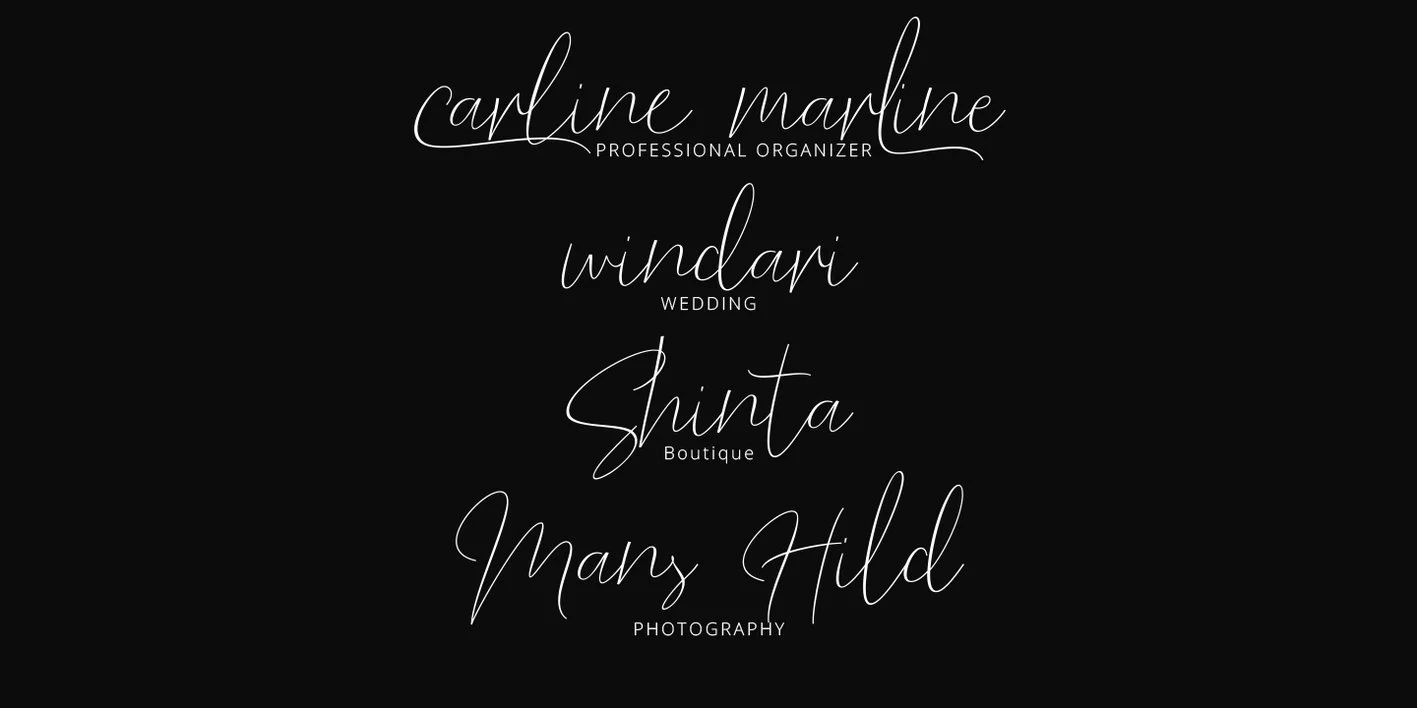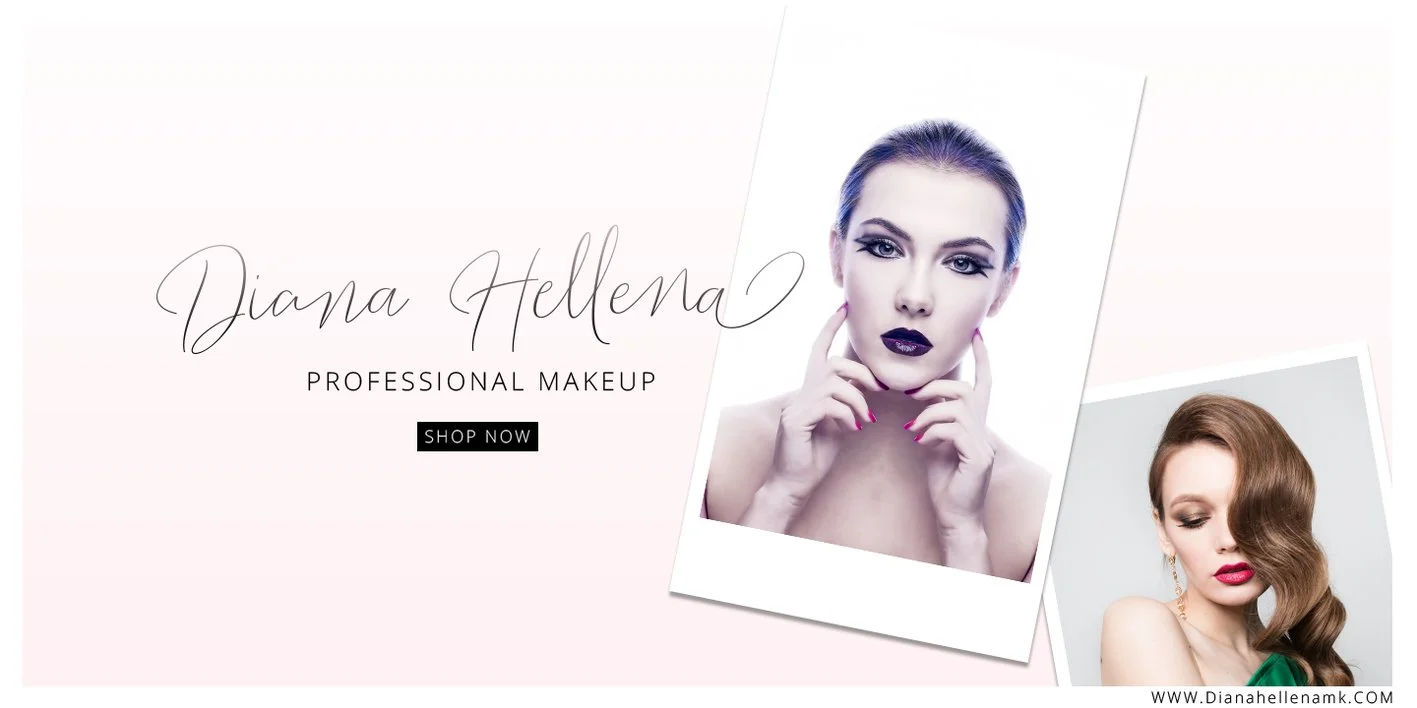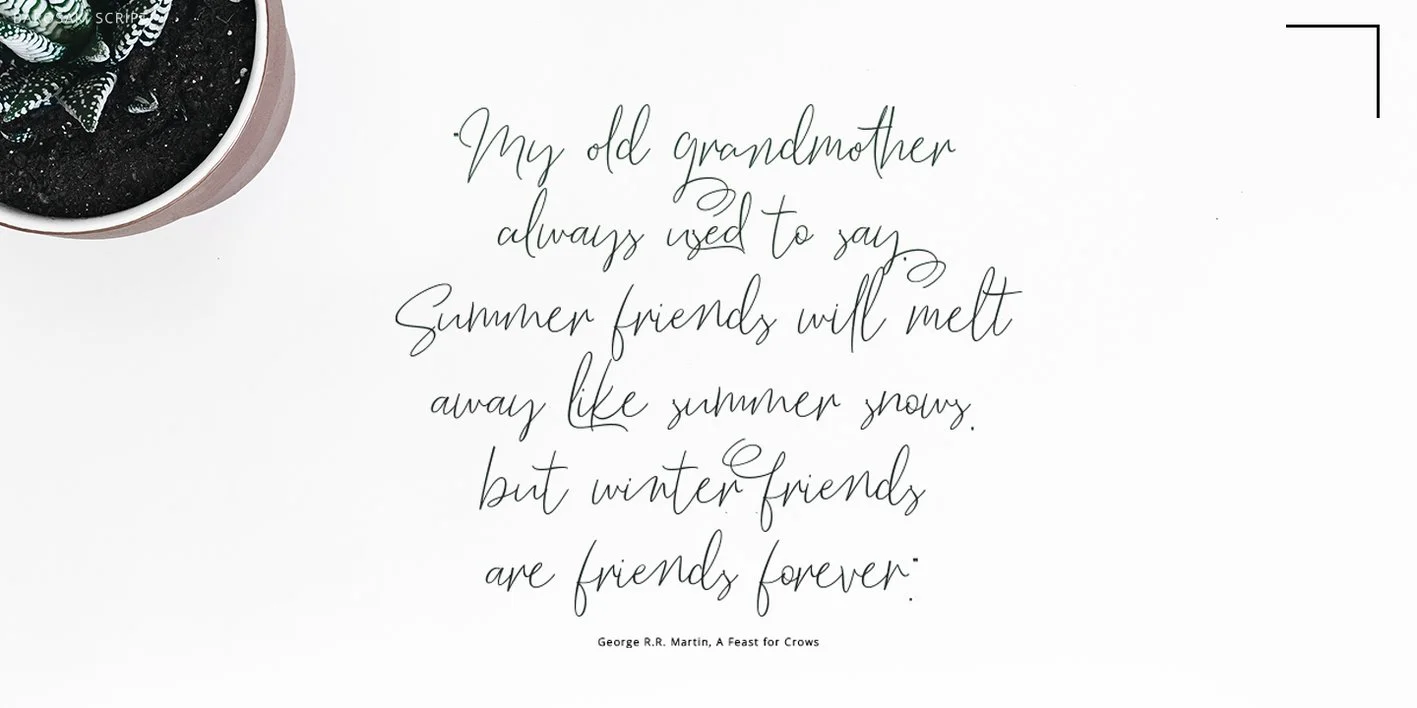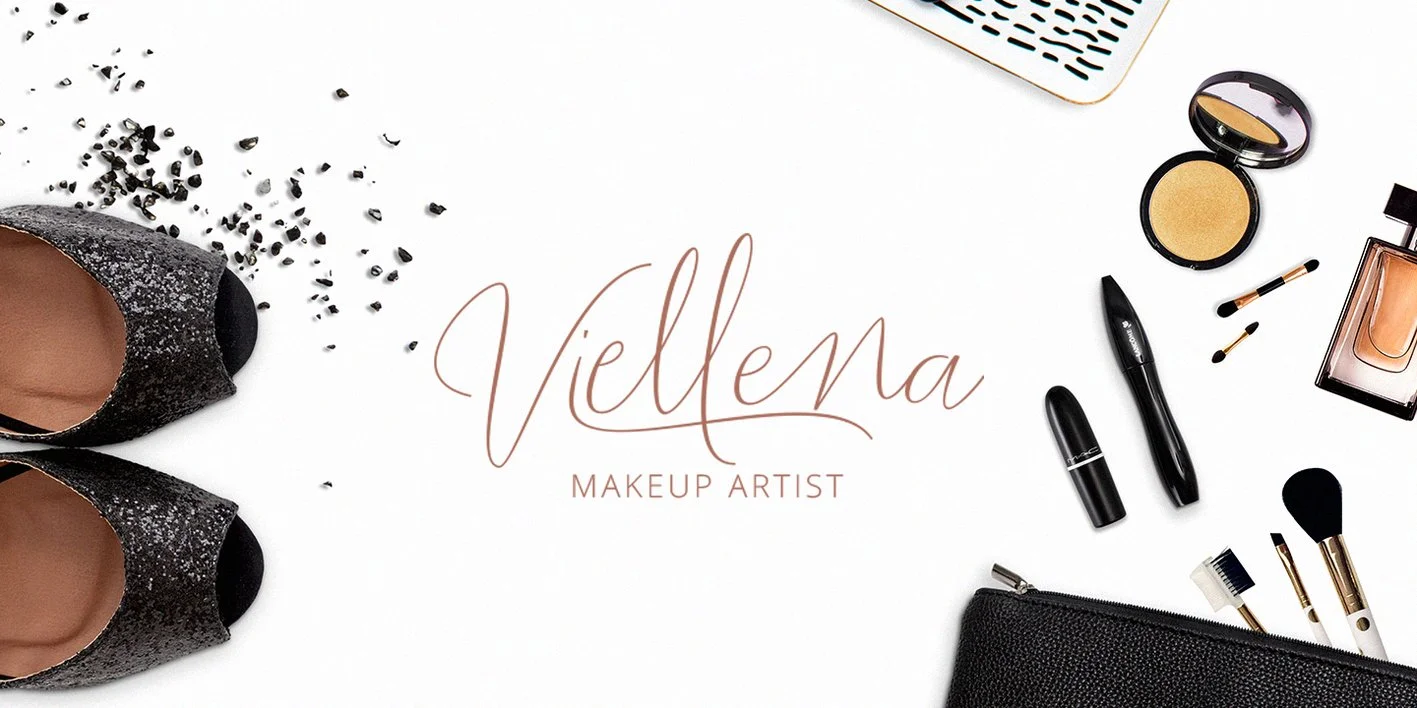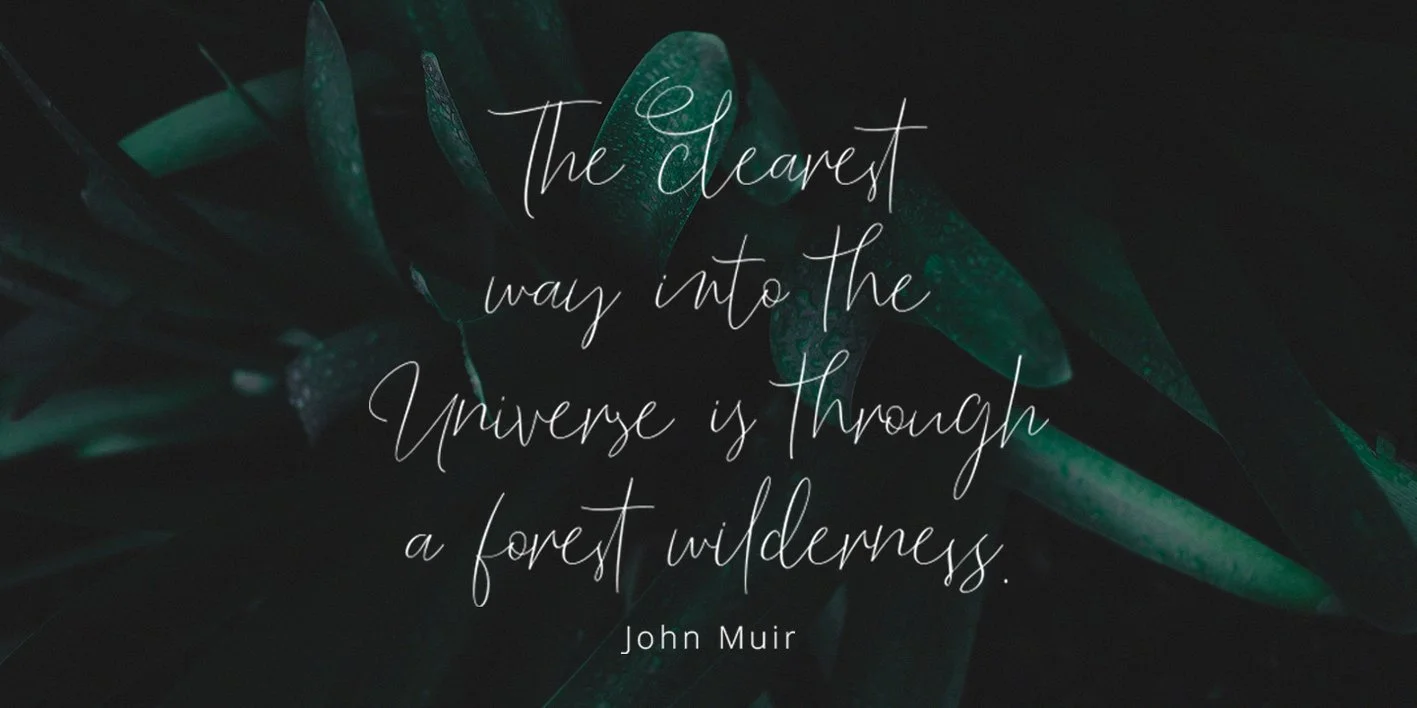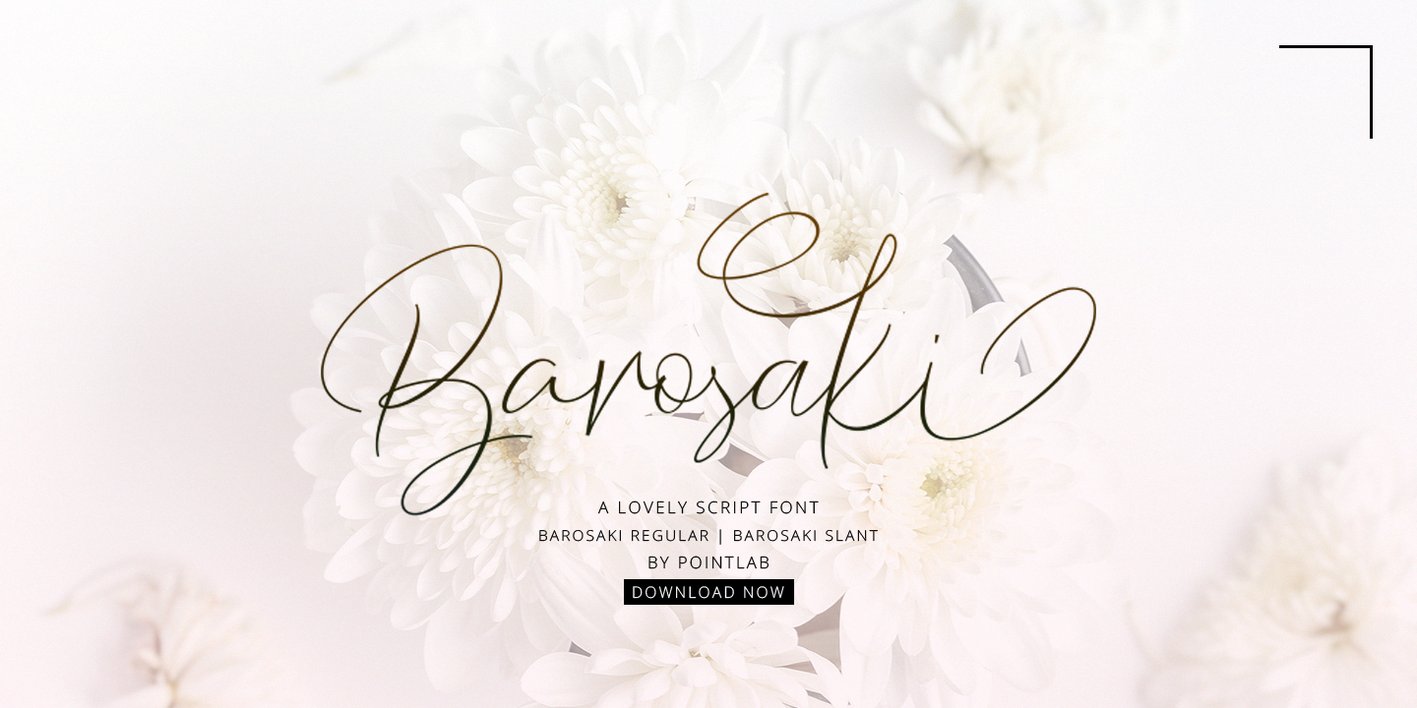
Barosaki Script Font
When a design brief calls for both visual harmony and precise spacing and immediate visual impact, type choices matter — Barosaki Script answers that brief. The typeface brings an elegant, calligraphic sensibility to a broad range of creative disciplines, with controlled contrast that rewards close inspection that holds up whether the work is print-first or screen-first.
In practice, Barosaki Script proves particularly effective for boutique logos, event signage, feminine branding, web design, editorial layouts. Designers reaching for it find that the type decisions feel resolved rather than laboured — a useful quality when client timelines are tight.
The range of applications extends to perfume labels, annual reports, product labels, high-end cosmetic packaging. That breadth is deliberate: the proportions and spacing were stress-tested across a wide range of mock briefs before the typeface was finalised.
In-house creative teams at consumer brands find Barosaki Script a reliable choice for projects that demand both personality and restraint. The design avoids the self-conscious quirkiness that dates quickly, settling instead for considered distinctiveness that holds up over time.